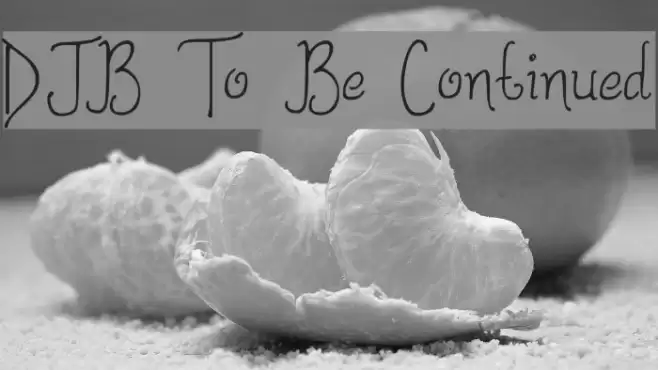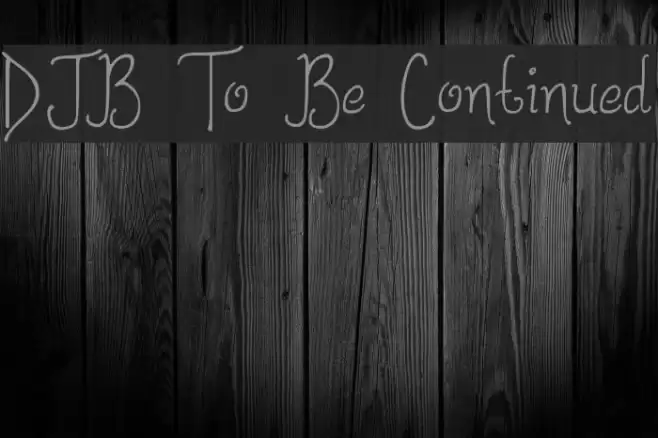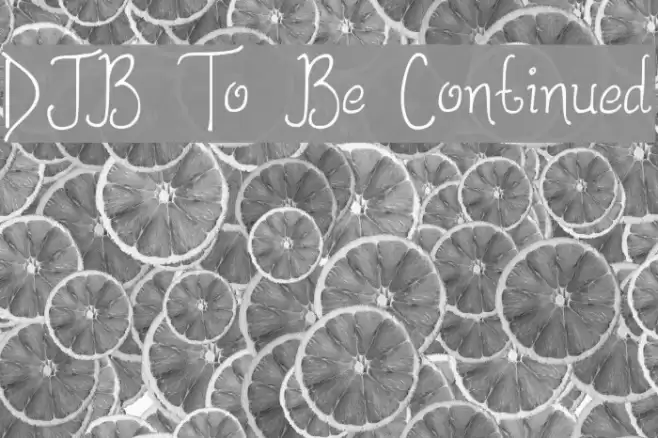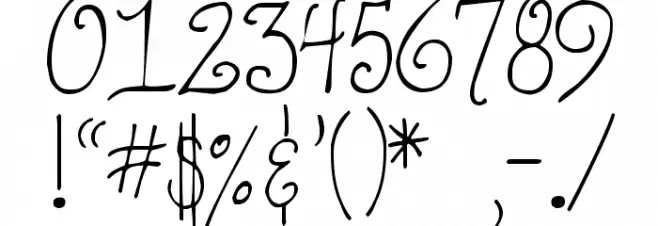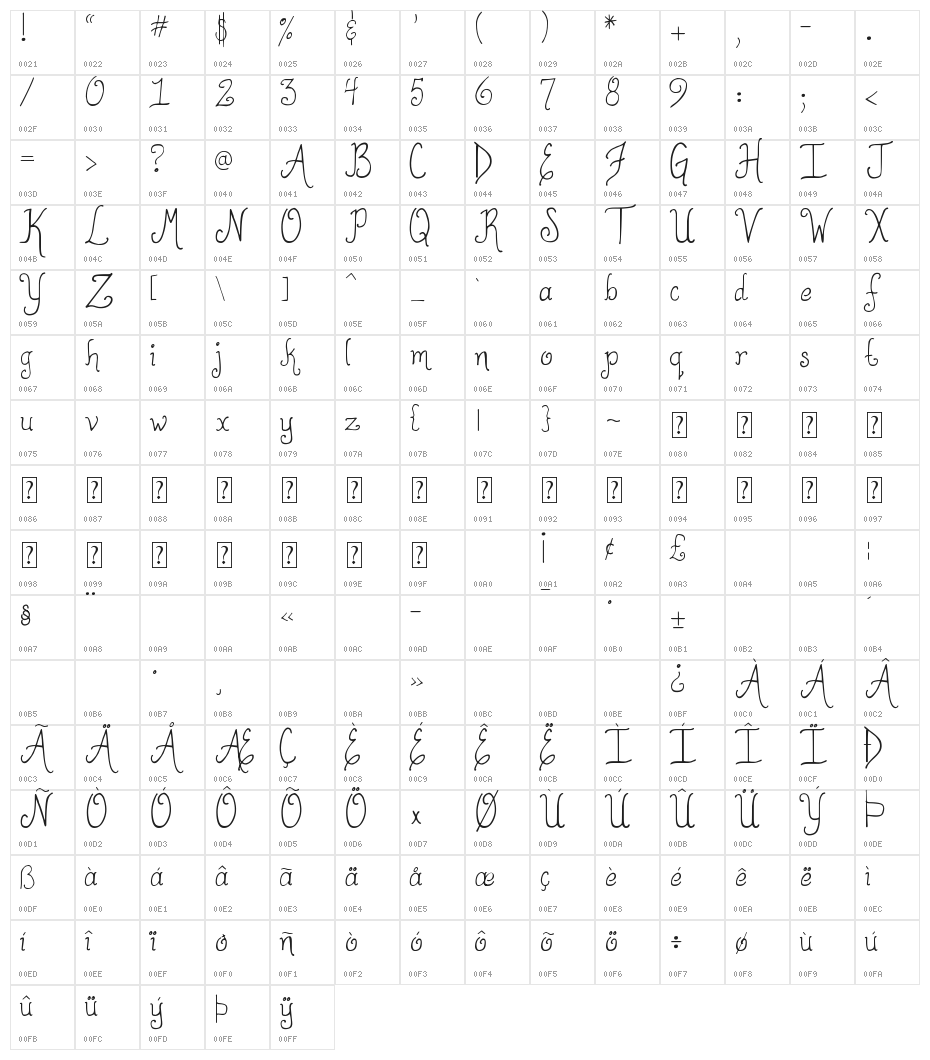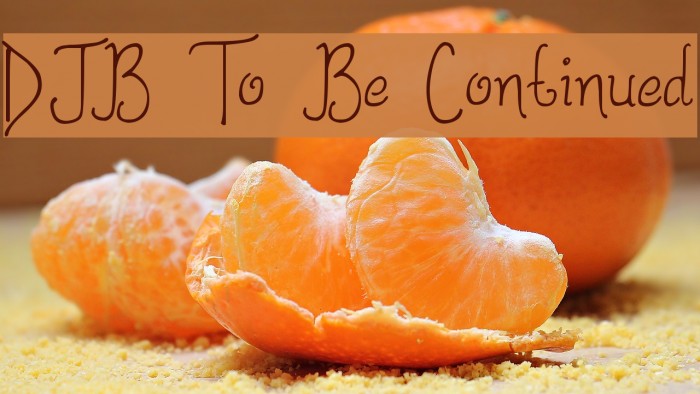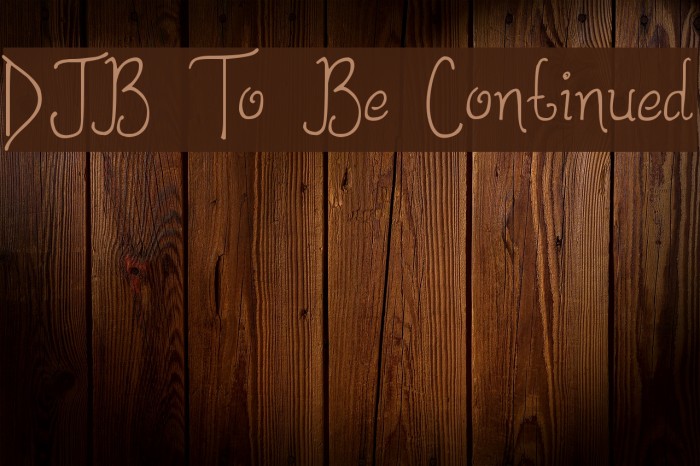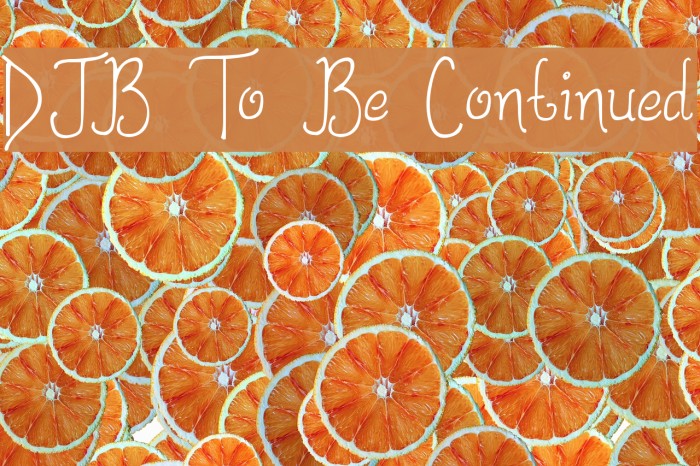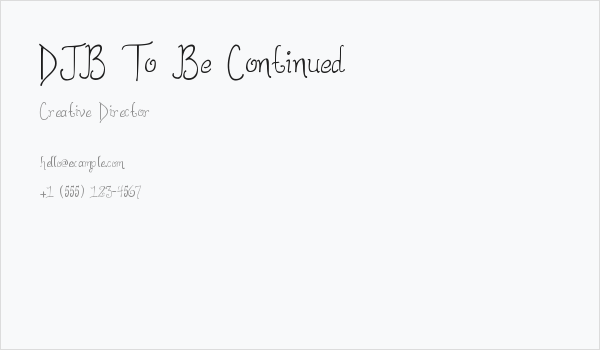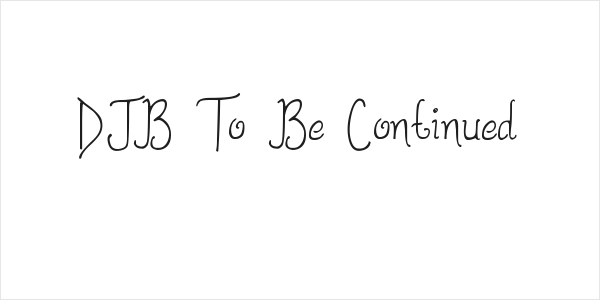
DJB To Be Continued Font
DJB To Be Continued Description
This font features a whimsical and playful script style, characterized by its flowing, hand-drawn appearance. The uppercase letters are tall and elegant, with exaggerated loops and curves that give them a lively personality. The lowercase letters maintain a consistent flow, with some letters having unique, quirky elements such as the looped descenders on 'g' and 'y'. The numbers are equally playful, with a consistent stroke width that matches the letters. Special characters are creatively integrated, maintaining the font's overall whimsical style. The font's design is both casual and artistic, making it suitable for projects that require a personal touch.
A whimsical, hand-drawn script font with playful loops and curves from Uncategorized fonts.
- Proposed Projects: Ideal for greeting cards, children's books, playful branding, and creative invitations.
- Use Case: Headlines, Logos, Invitations